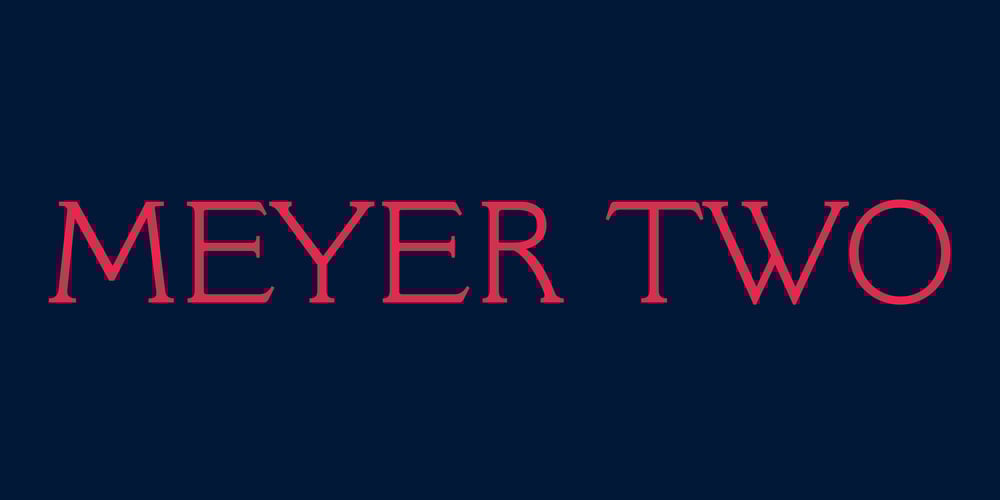
Meyer Two Font Family was designed by David Berlow and published by Font Bureau. Meyer Two contains 2 styles and family package options. Meyer Two captures the early Hollywood flavor and nostalgia of silent-film intertitles. From 1922 through 1928, Mergenthaler Linotype cut five fonts to Louis B. Meyer’s personal specifications. Meyer Two, drawn in 1926, curiously combines Cleland’s ATF Della Robbia capitals of 1902 with lowercase and figures from ATF Post Monotone No. 2, also from the same period. Meyer Two was revived, with a Condensed added, by David Berlow; FB 1994